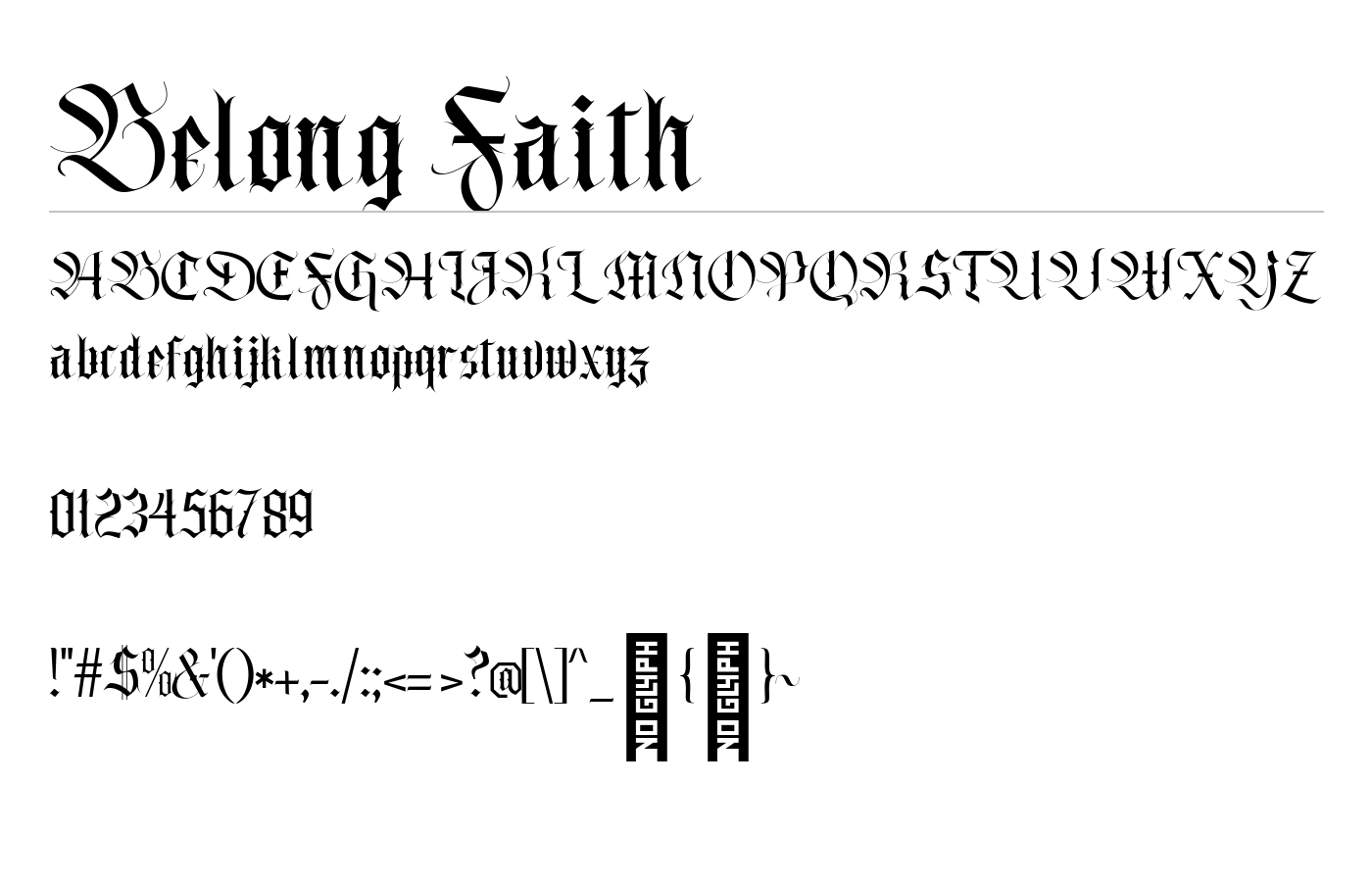
Belong Faith is a blackletter serif font with intricate, sharp strokes and a high contrast between thick and thin lines, giving it a bold and historic feel. Its ornate letterforms and dramatic flair evoke a sense of tradition and solemnity, making it ideal for use in vintage branding, editorial headlines, and designs that want to convey elegance and authority. This font works best in display settings where its detailed style can be fully appreciated without sacrificing readability.
Belong Faith Font
About Belong Faith Font
| Font family | Belong Faith Font |
| Designer | I Made Dwi Putra Yoga |